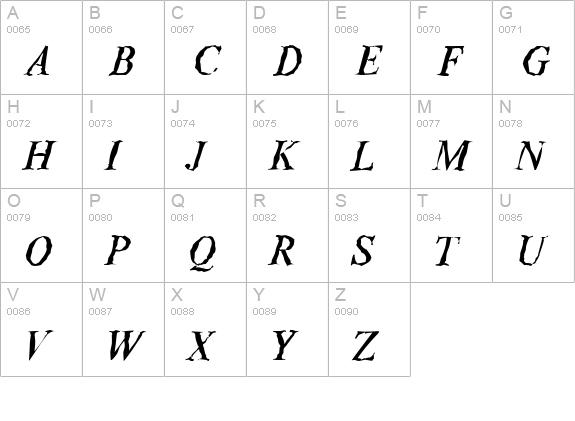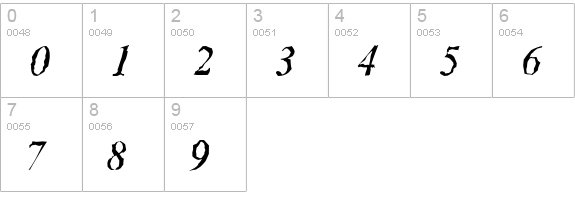
RiccioneRandom-Italic is a distinctive, italic variant in the RiccioneRandom typeface family \xE2\x80\x94 well suited to design and typography projects.
RiccioneRandom-Italic font is a whimsical and playful typeface that adds a touch of creativity to any design project. Its unique and irregular letterforms exude a sense of spontaneity and fun, making it perfect for projects that require a more casual and relaxed vibe. The italic style adds a dynamic flair to the text, making it stand out and draw attention. Best of all, RiccioneRandom-Italic font is available for free download at FontsMarket.com. This means you can easily access this charming font and use it in your personal and commercial projects without any cost. Embrace the creativity and individuality of RiccioneRandom-Italic font and bring a touch of whimsy to your designs today.